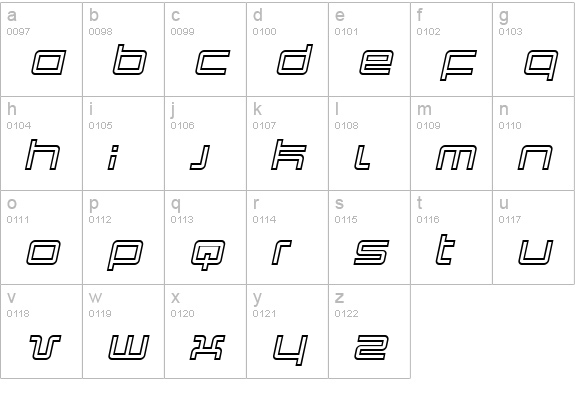
Quark Outline Italic is a distinctive, italic variant in the Quark typeface family \xE2\x80\x94 well suited to design and typography projects.
Quark Outline Italic font is a stunning and elegant typeface that adds a touch of sophistication to any design project. With its unique combination of thin strokes and delicate curves, this font captures attention and conveys a sense of modernity and creativity. This font is perfect for highlighting titles, headings, or any text that needs to stand out. Its italic style adds a dynamic and stylish flair, making it a versatile choice for both print and digital designs. One of the best features of Quark Outline Italic font is that it is freely available to download at FontsMarket.com. This means that you can enhance your designs without breaking the bank or worrying about licensing restrictions. Whether you are a professional designer or a hobbyist, this font provides you with the freedom to create stunning visuals without any limitations. The crisp and clean lines of Quark Outline Italic font ensure legibility, even at smaller sizes, making it suitable for various purposes such as branding, advertising, packaging, and more. Its contemporary and sleek appearance adds a touch of elegance to any design, making it a popular choice among designers worldwide. With Quark Outline Italic font, you can effortlessly elevate your projects to the next level. Its professional and sophisticated aesthetic will leave a lasting impression on your audience, making your designs truly unforgettable. So why wait? Download Quark Outline Italic font from FontsMarket.com today and unlock endless possibilities for your design projects. Enjoy the freedom of using a high-quality font that is not only visually appealing but also easily accessible. Let your creativity soar with Quark Outline Italic font and watch your designs come to life.